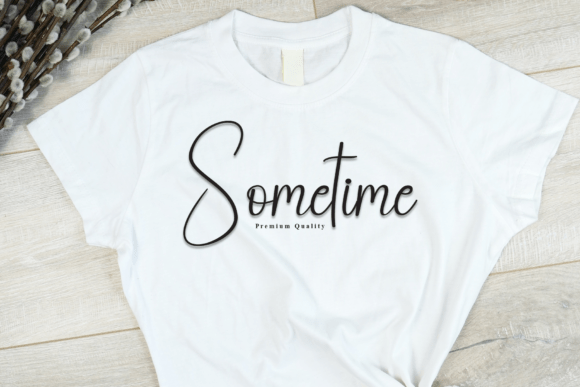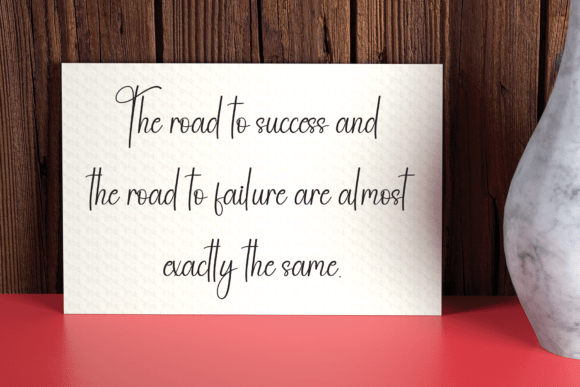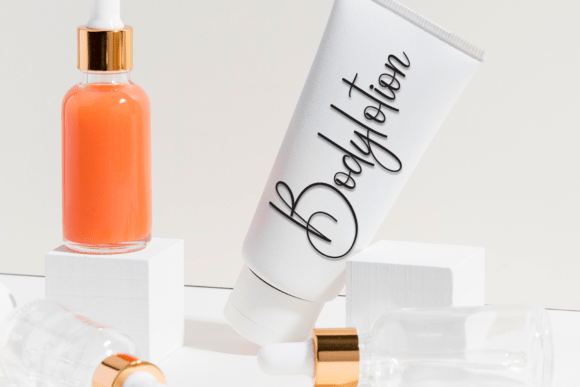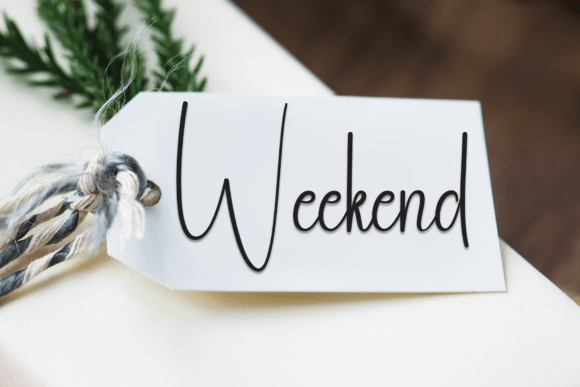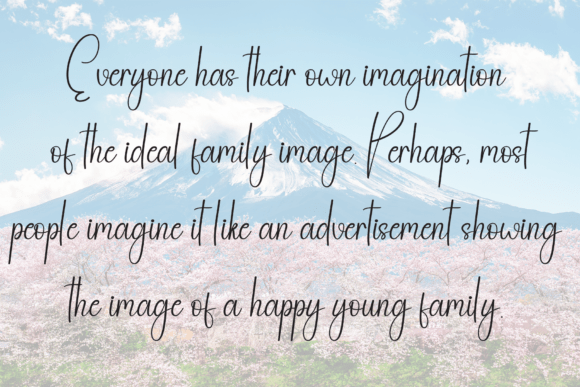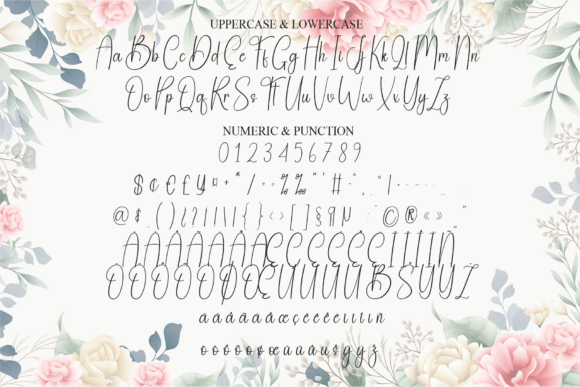
The Designer’s Delight: Amellia Font
Have you ever been in the middle of a design project, and suddenly, you’re stuck on finding the perfect font? I recall a recent experience where I was working on a branding project for a boutique client, and I just couldn’t find a font that captured the essence of their elegant yet playful vibe. That’s when I stumbled upon the Amellia font, and it was love at first sight! 💕
Amellia Font: A Stylish Handwritten Script
Amellia is a stylish handwritten script font that seamlessly blends modern elegance with a playful touch. Its fluid strokes and charming curves bring a personal feel to any design, making it an ideal choice for logos, packaging, and invitations. This typeface adds warmth, sophistication, and creativity to every project, making it a must-have for designers, crafters, and creative hobbyists.
Honest Review: The Good and the Quirks
• ✨ Elegant and modern design with a playful twist
• ✅ Highly versatile and adaptable to various design projects
• 💫 Fluid strokes and charming curves for a personal touch
• 🎨 Extensive range of OpenType features and glyphs for creative freedom
While Amellia is an exceptional font, there are a few minor quirks to consider:
• ⚠️ Some characters may appear slightly condensed, affecting readability at small sizes
• 🤔 Limited availability of bold weights, which may not suit every design requirement
The Story Behind Amellia
Amellia was designed by a talented typographer who sought to create a font that would capture the essence of modern elegance with a playful twist. Inspired by the flowing curves of handwritten scripts, Amellia was crafted to bring a personal touch to every design. With its extensive range of OpenType features and glyphs, Amellia has become a go-to font for designers seeking to add a touch of sophistication and creativity to their projects.
Q: What type of projects is Amellia best suited for?
A: Amellia is ideal for logos, packaging, invitations, and any design project that requires a touch of elegance and playfulness.
Q: Does Amellia come with a wide range of OpenType features?
A: Yes, Amellia features an extensive range of OpenType features, including ligatures, stylistic alternates, and glyphs, allowing you to add creative flair to your designs.
Q: Is Amellia suitable for body text?
A: While Amellia is a beautiful font, it’s best suited for display text or headings. For body text, you may want to consider a font with better readability at smaller sizes.